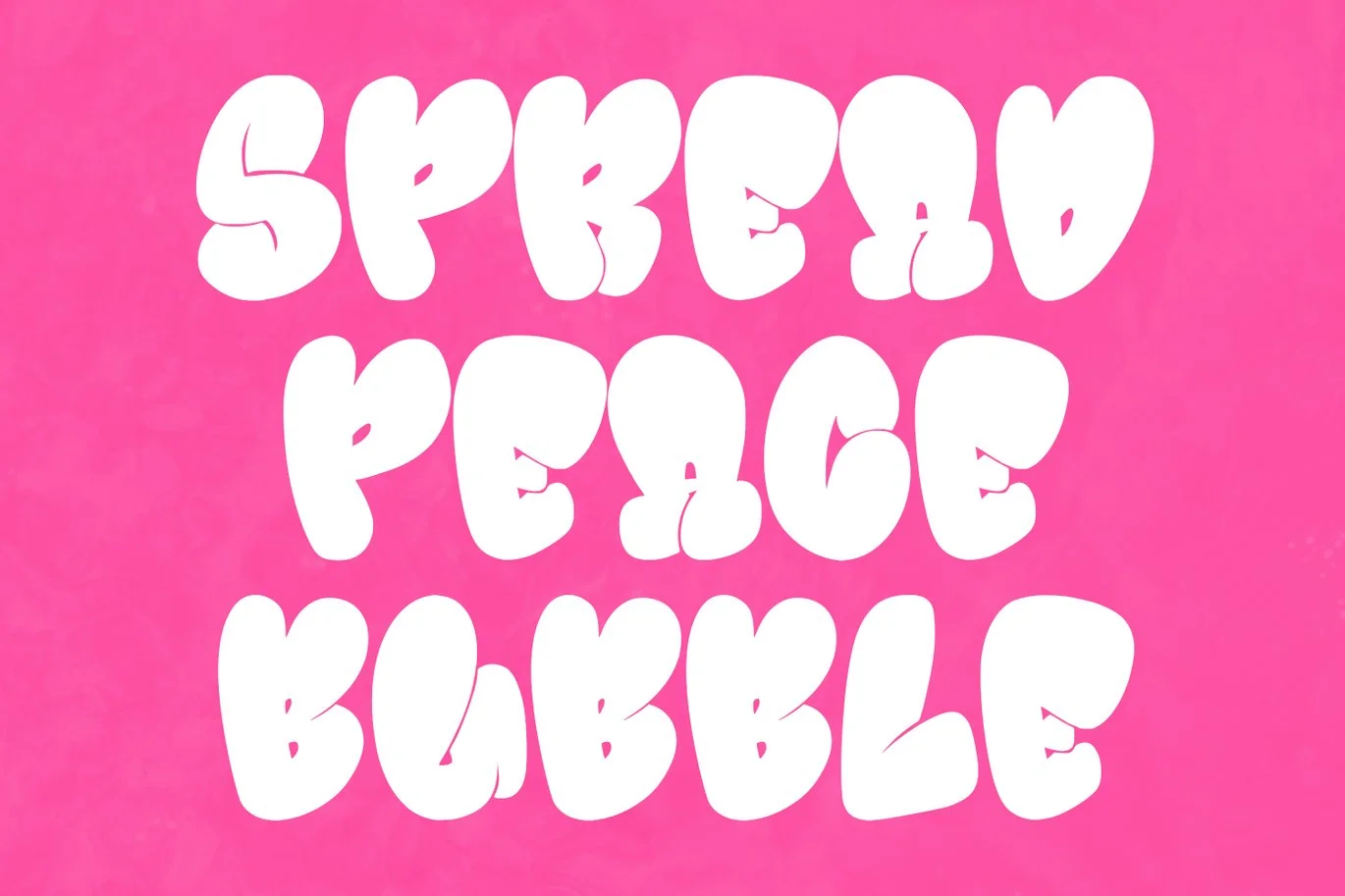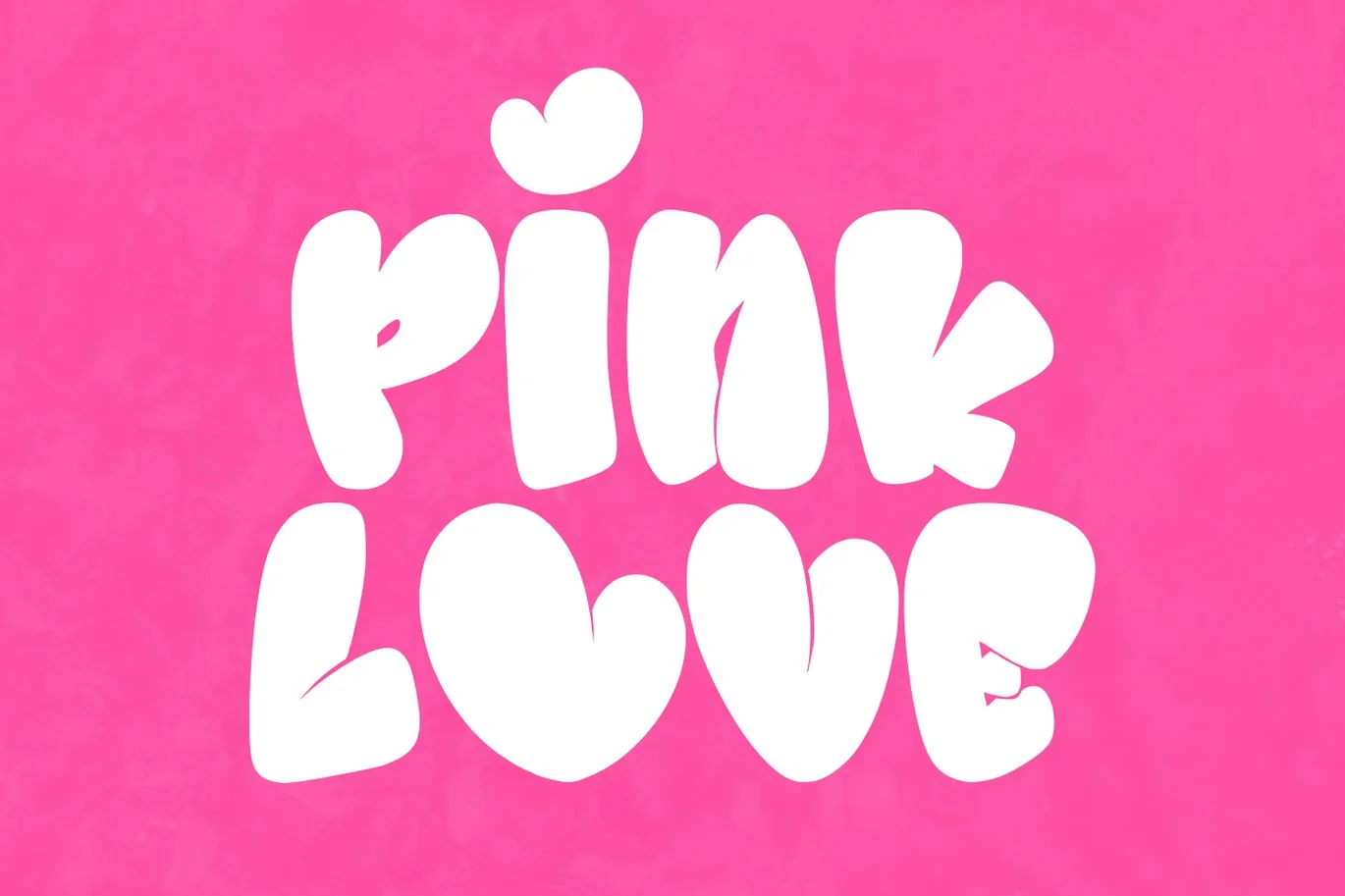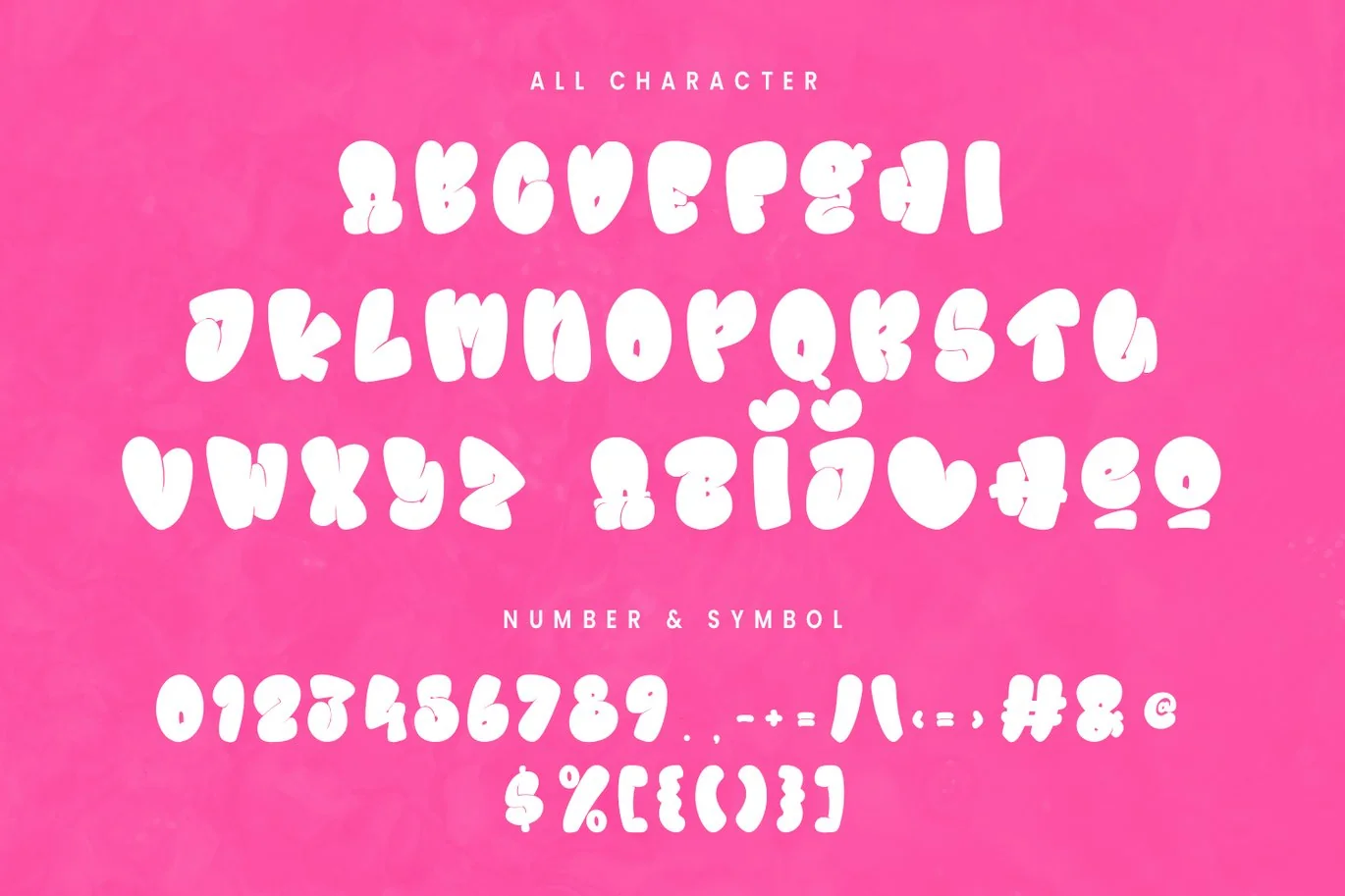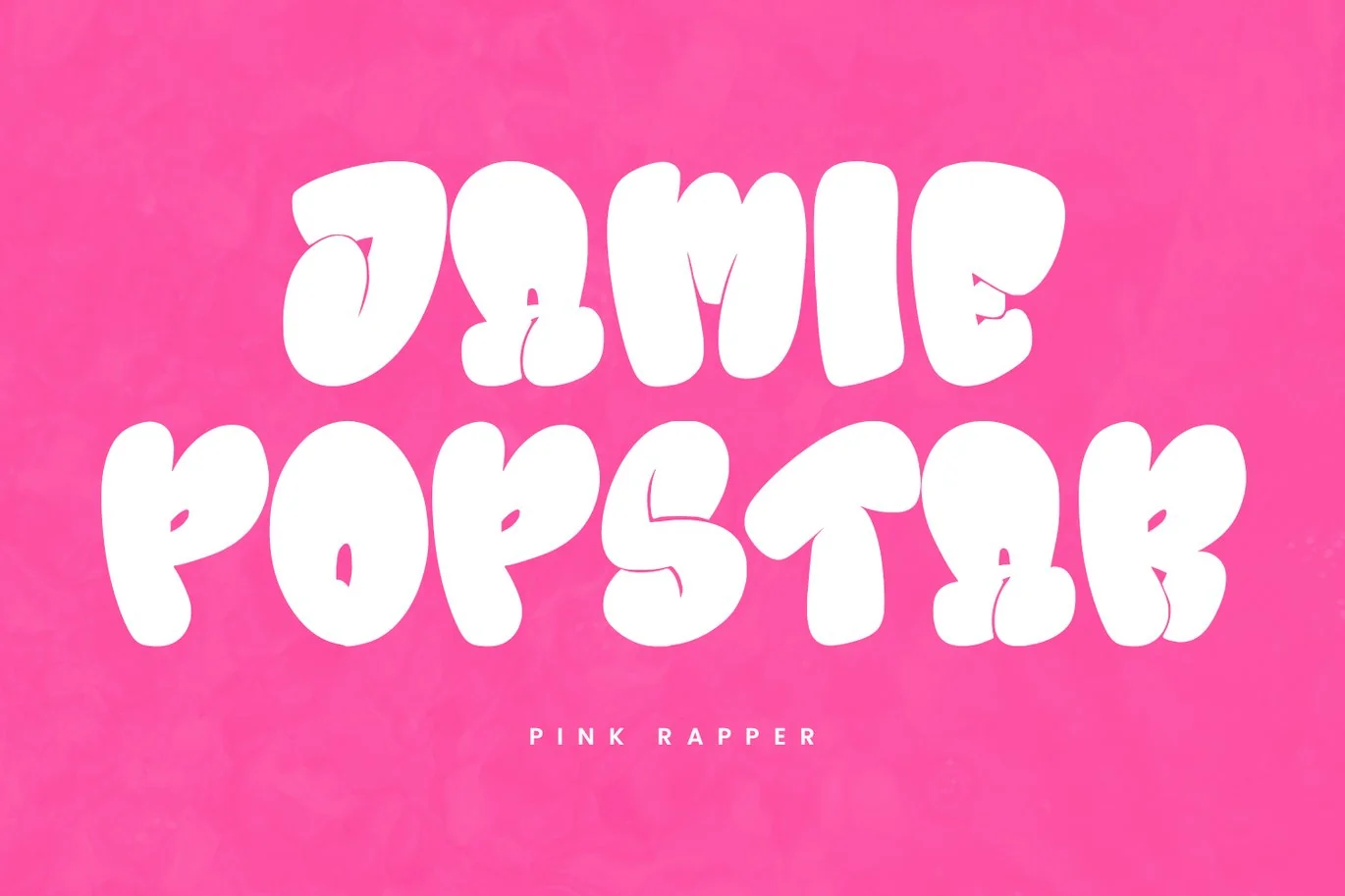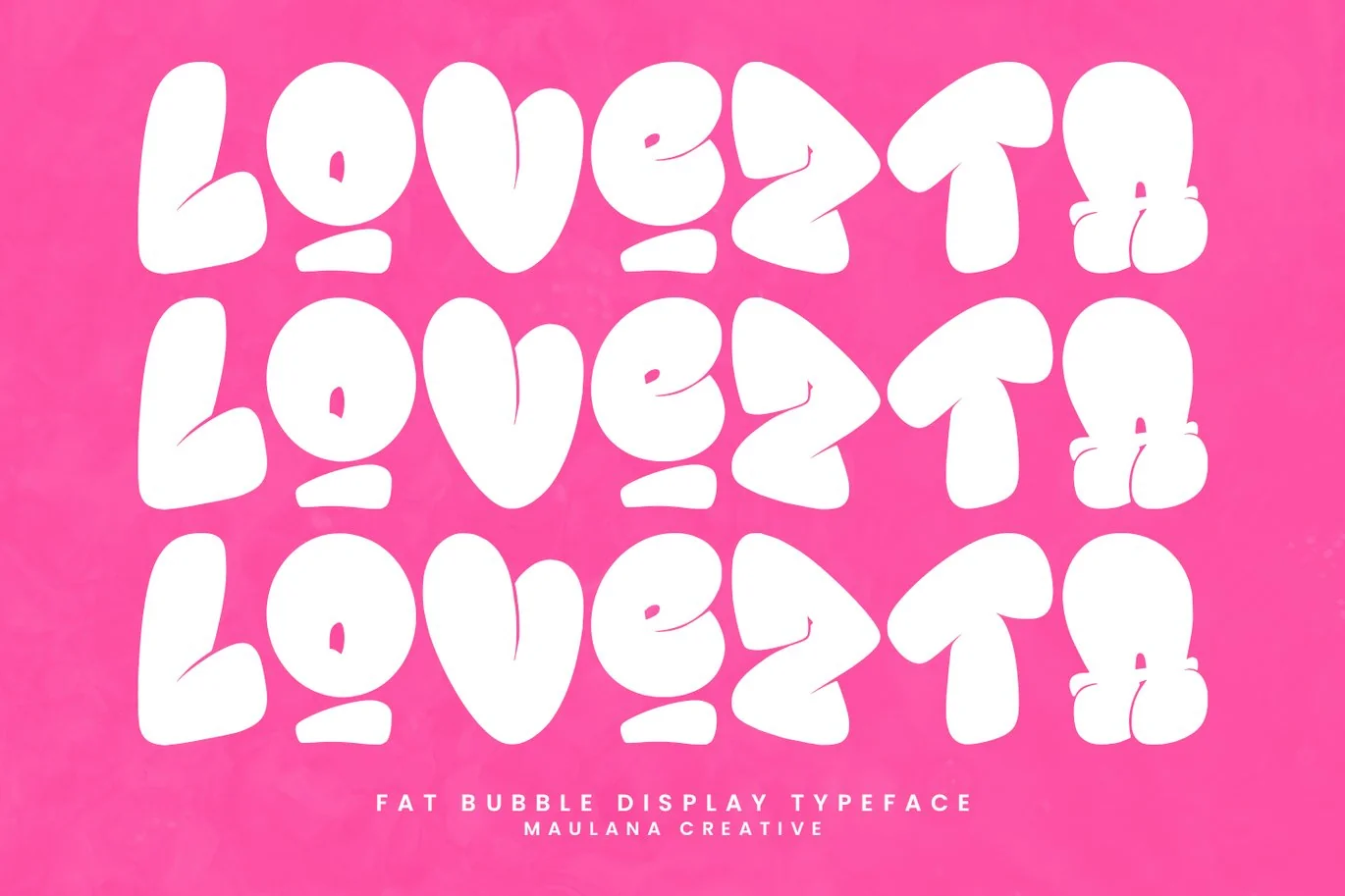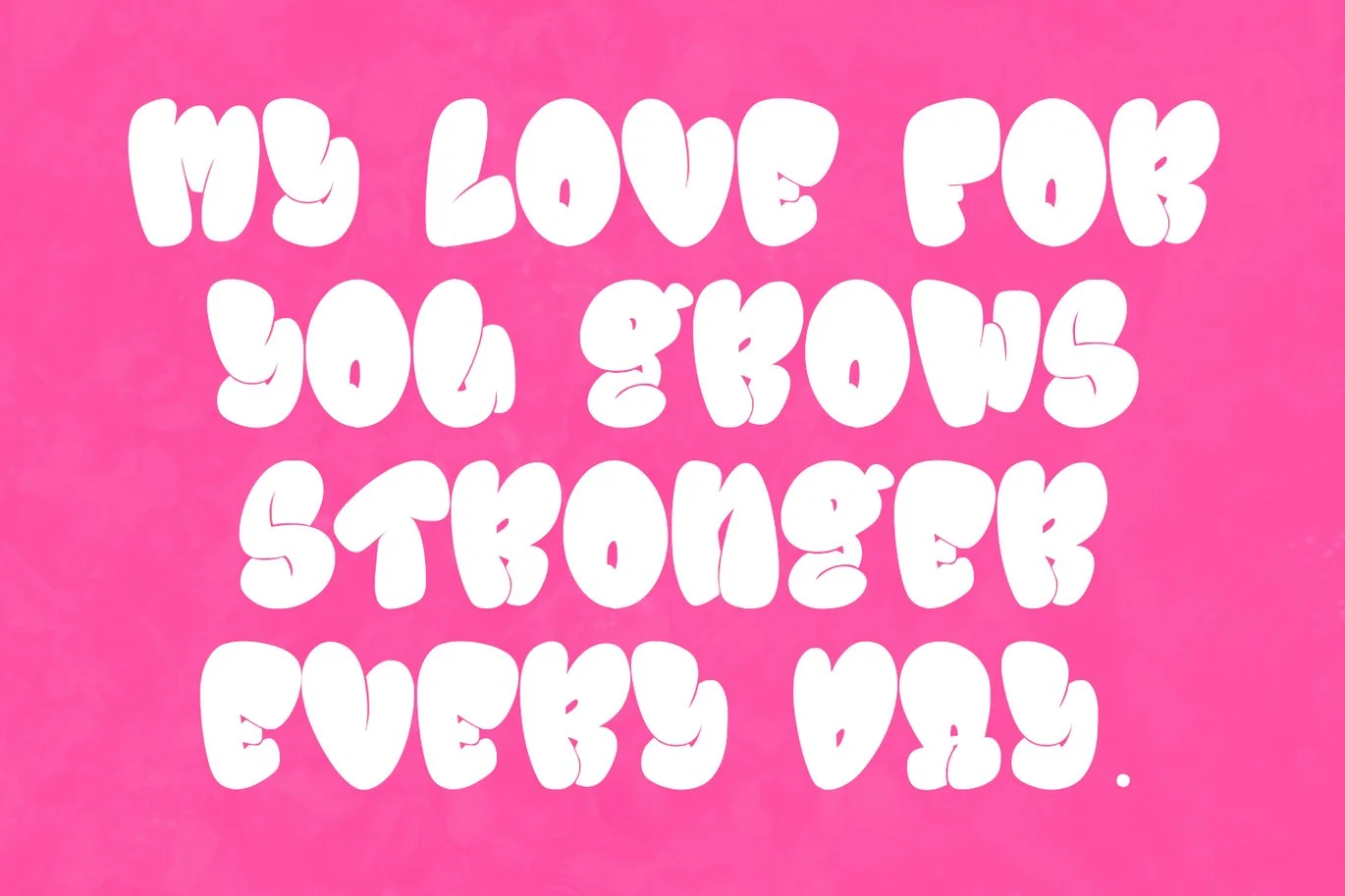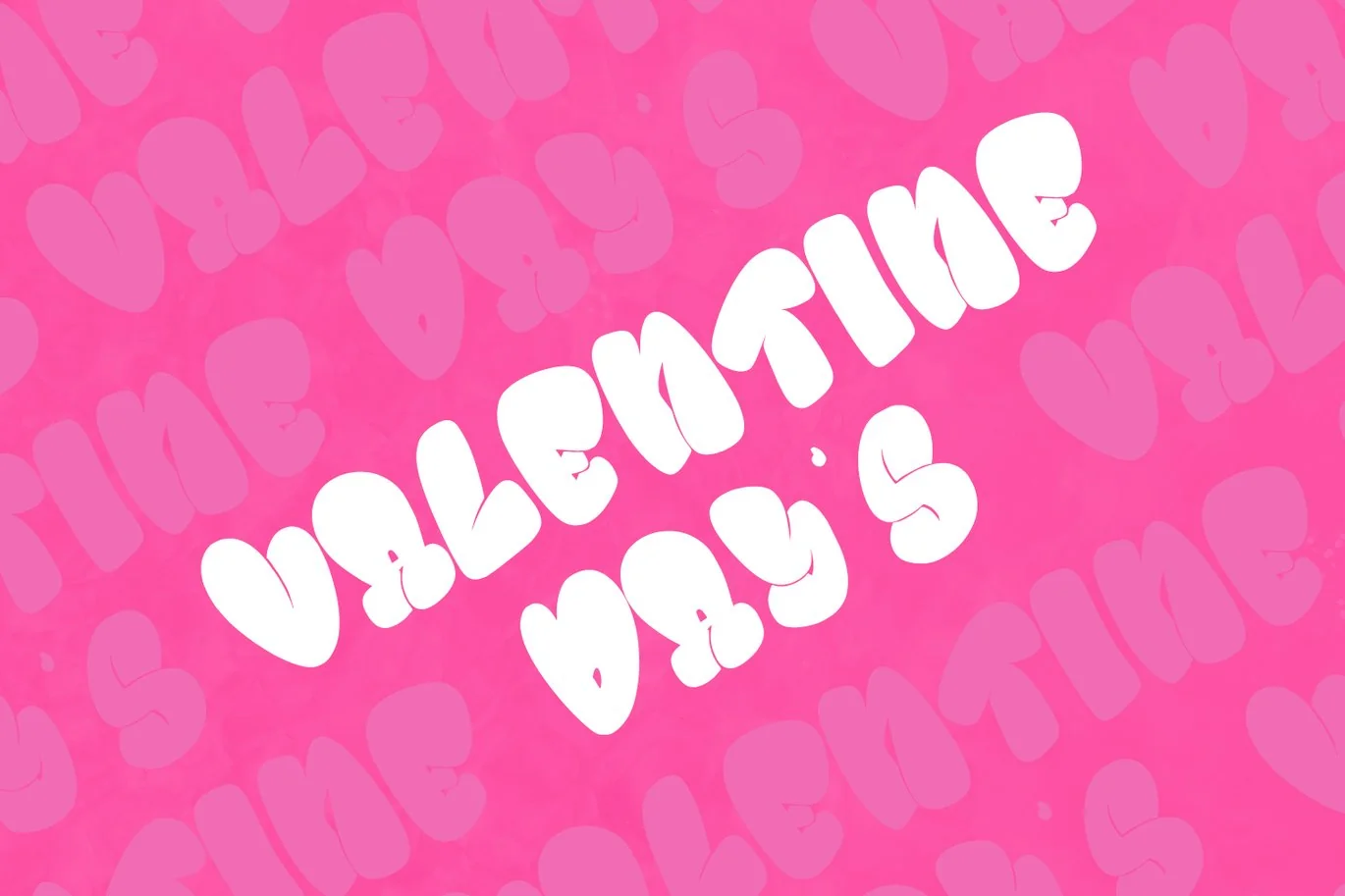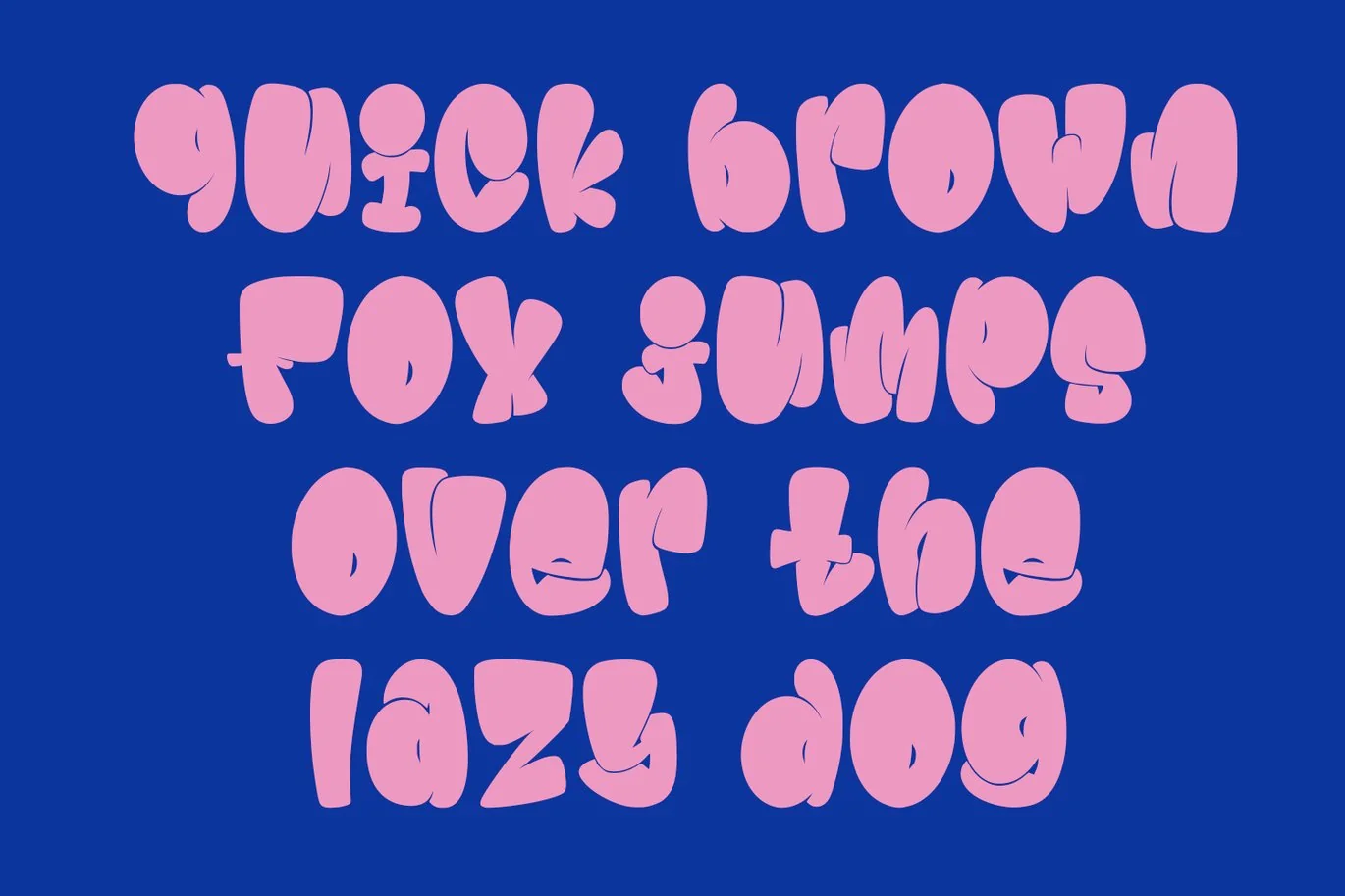
Lovezta Fat Bubble Display Font
Lovezta fat bubble display font. With sharp bold stroke, fun character with a bit of ligatures and alternates. To give you an extra creative work. Lovezta fat bubble display font support multilingual more than 100+ language. This font is good for logo design, Social media, Movie Titles, Books Titles, a short text even a long text letter and good for your secondary text font with script or serif. Make a stunning work with Lovezta fat bubble display font.